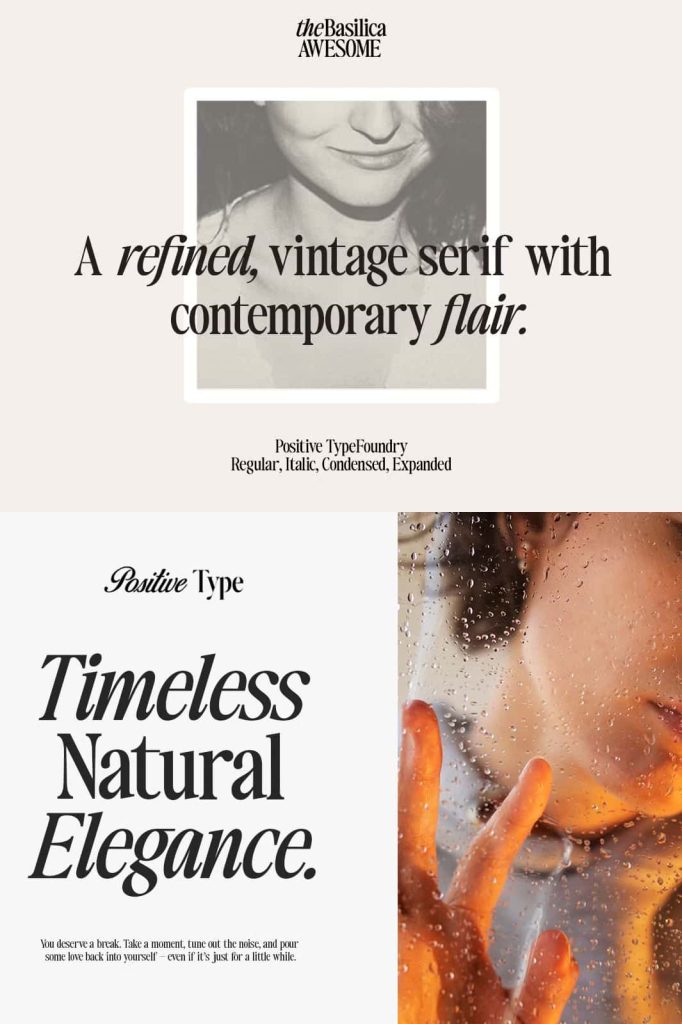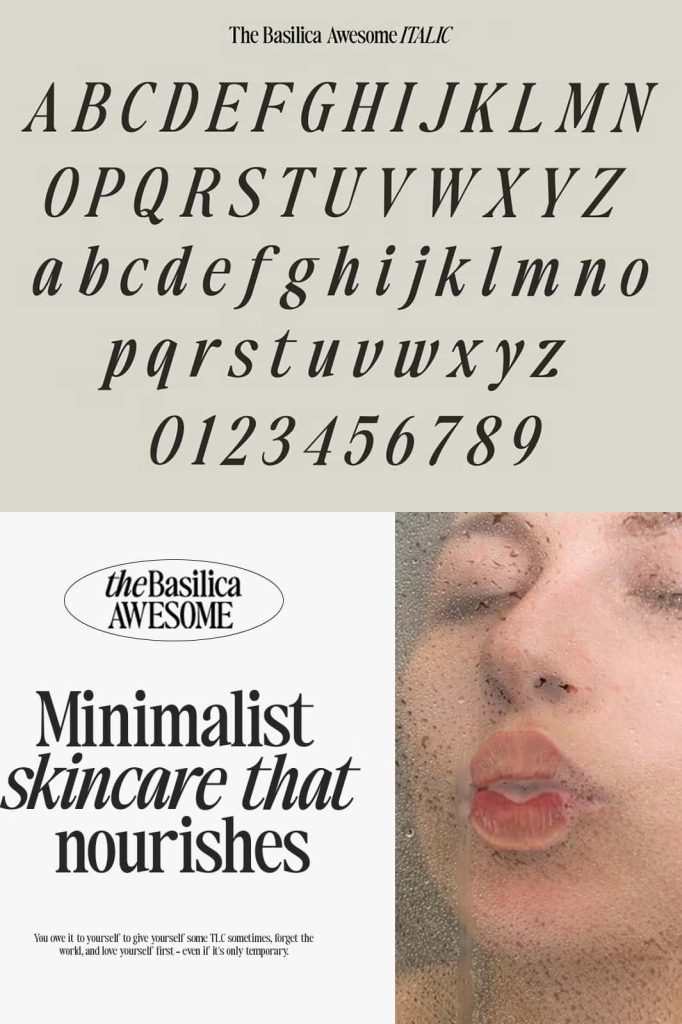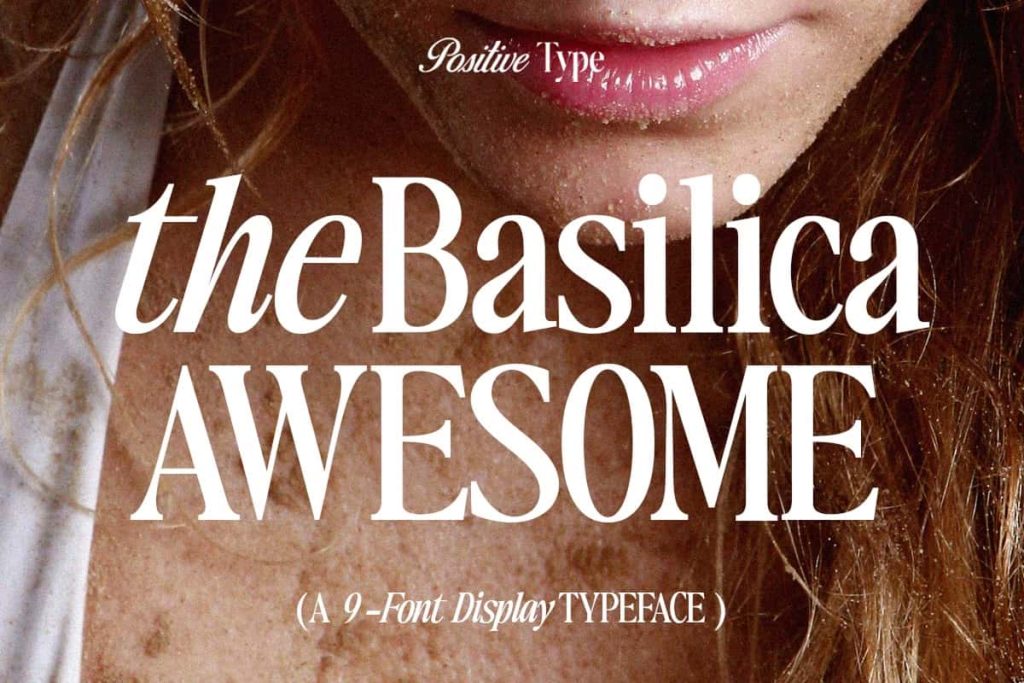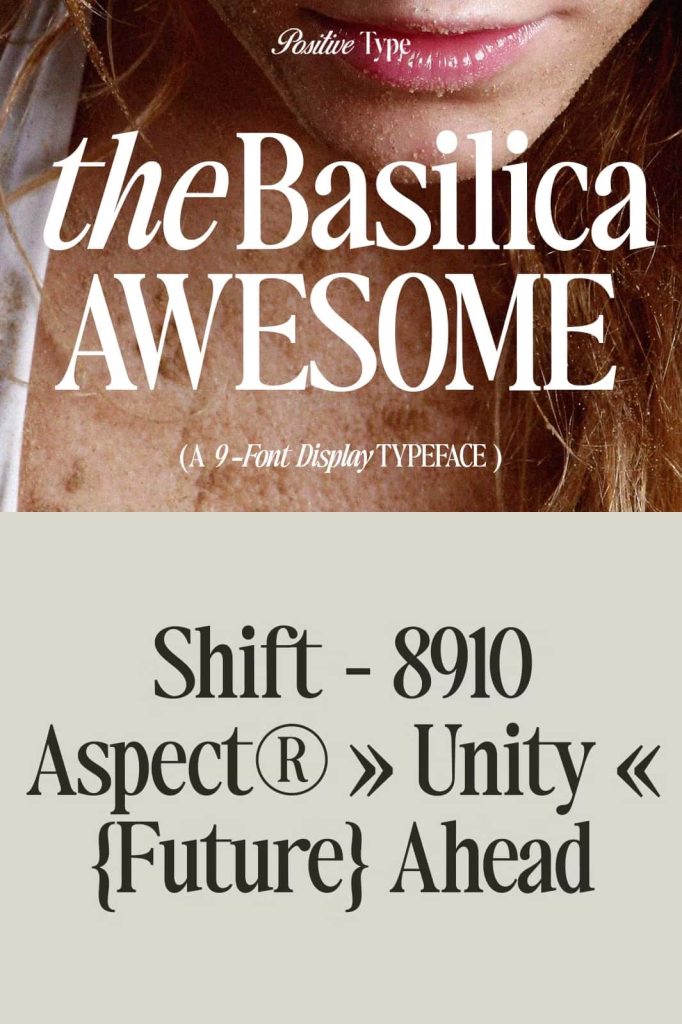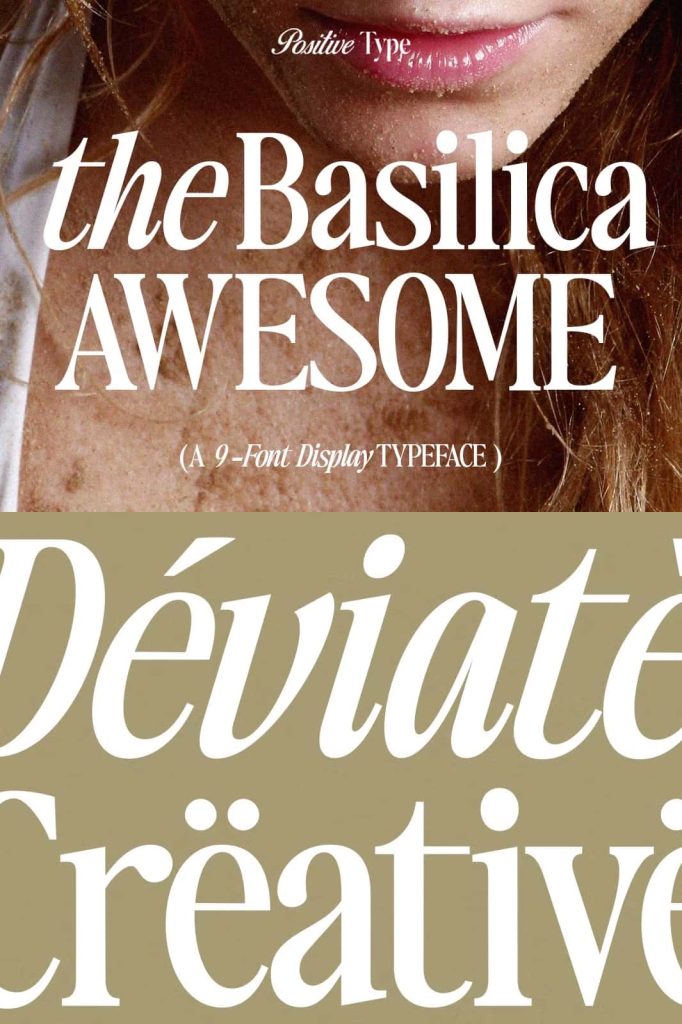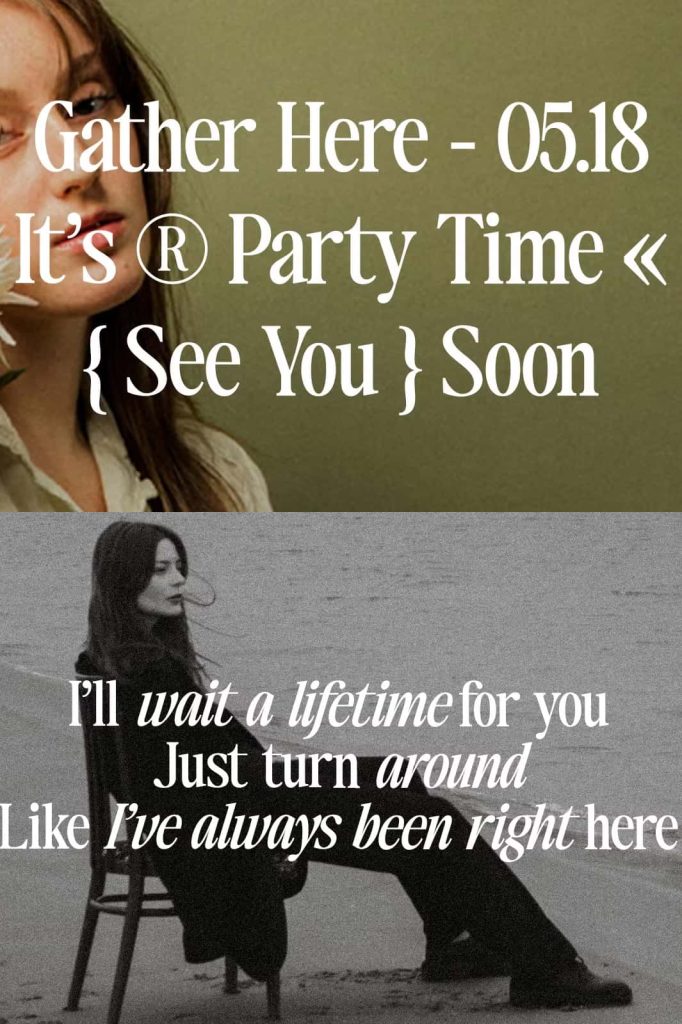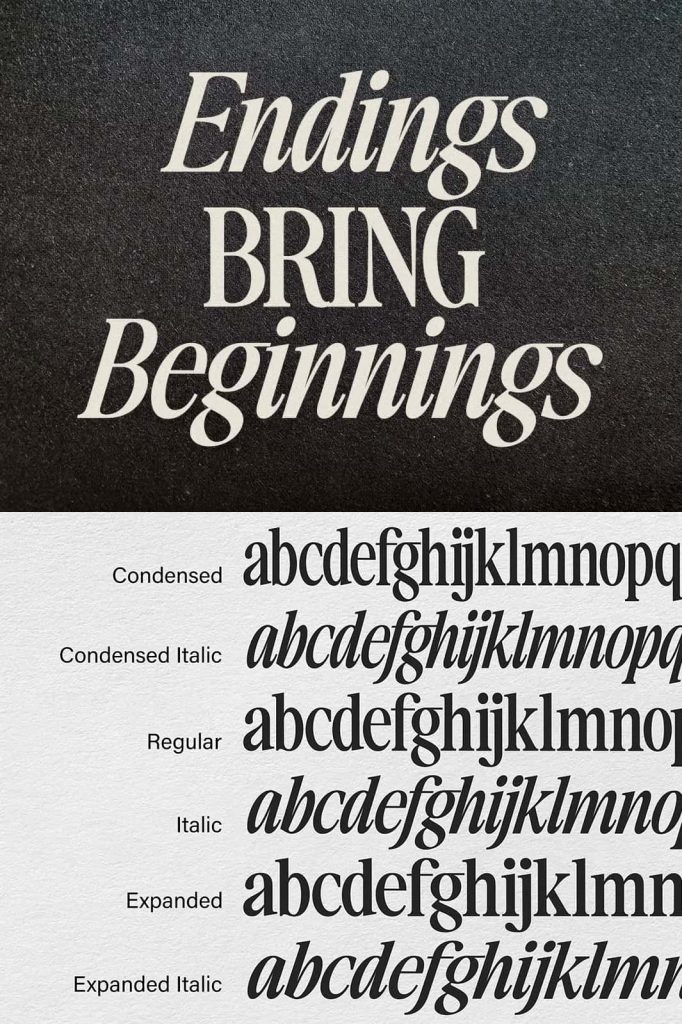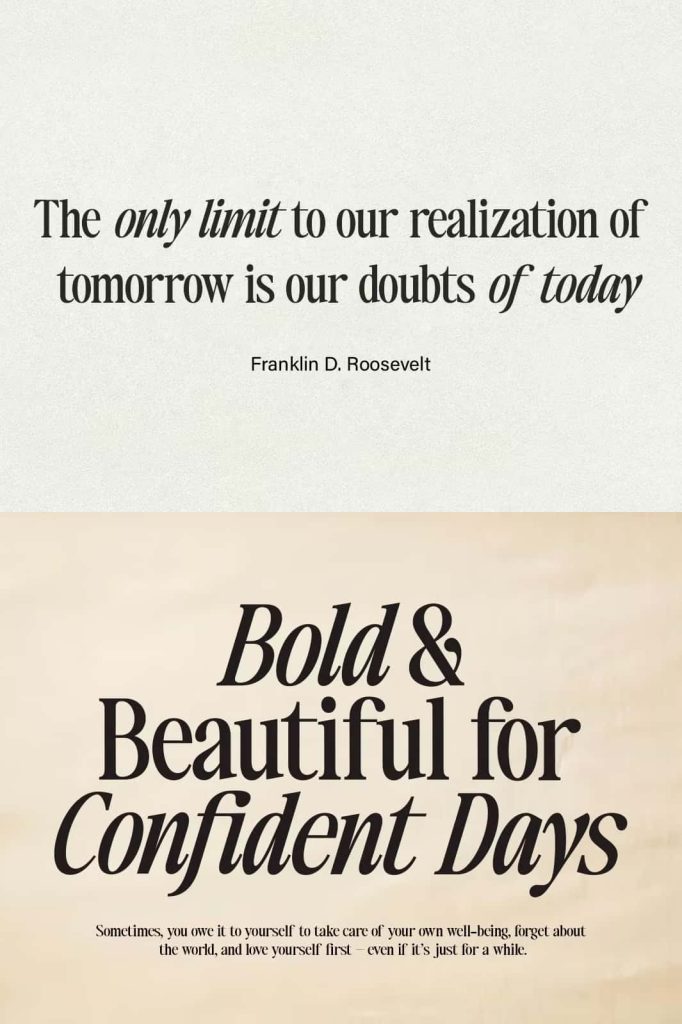
Basilica Awesome Modern Vintage Serif Font with Classy Elegance
Basilica Awesome is a modern vintage serif font designed to deliver a refined, luxurious, and elegant visual presence. This typeface combines classic serif traditions with contemporary design sensibilities, resulting in a font that feels timeless yet confidently modern. With its balanced proportions and carefully crafted details, Basilica Awesome empowers designers to create high-end typography that elevates any project.
This font does not simply decorate text. It strengthens brand identity, enhances visual hierarchy, and communicates sophistication. Whether you work on digital platforms or print materials, Basilica Awesome helps you produce designs that feel premium, intentional, and visually compelling.
A Modern Vintage Serif with Timeless Appeal
Basilica Awesome draws inspiration from vintage serif typography while refining it for today’s design standards. The font features strong serifs, smooth curves, and elegant contrast that create a polished and confident appearance. Each letterform reflects careful attention to detail, ensuring clarity and style at both large and small sizes.
This modern vintage serif font blends nostalgia with contemporary precision. It allows designers to evoke classic elegance without sacrificing readability or modern aesthetics. As a result, Basilica Awesome works seamlessly across a wide range of creative applications.
Elegant Uppercase and Lowercase Variations
Basilica Awesome provides beautifully designed uppercase and lowercase variations that give you full control over your typographic expression. These variations allow you to shape the tone of your design, from bold and authoritative to soft and refined. You can combine cases to build visual rhythm and emphasize key messages.
The harmonious relationship between uppercase and lowercase characters helps you create balanced layouts and elegant compositions. Whether you design headlines, subheadings, or refined brand marks, Basilica Awesome adapts effortlessly to your creative direction.
Advanced OpenType Features for Creative Control
This modern vintage serif font includes powerful OpenType features that expand your design possibilities. By activating these features in compatible design software, you gain access to a wide selection of stylistic alternatives and character variations. These options allow you to customize your typography and achieve a truly luxurious look.
With OpenType functionality, you can experiment with different character styles, refine letter combinations, and create unique typographic expressions. This level of control makes Basilica Awesome an ideal choice for designers who value flexibility and precision.
Design Luxurious and Classy Typography
Basilica Awesome excels in projects that demand elegance and sophistication. Its classy style makes it perfect for luxury branding, premium packaging, fashion editorials, and high-end promotional materials. The refined serif details communicate quality, trust, and exclusivity.
Use this font to design logos, logotypes, and brand identities that feel timeless and upscale. The font’s graceful structure ensures that your designs remain visually appealing and recognizable across multiple platforms and media.
Perfect for Editorial, Branding, and Web Design
In editorial design, Basilica Awesome enhances magazine layouts, book covers, and feature spreads with a refined and authoritative tone. The font helps establish strong typographic hierarchy and improves readability while maintaining an elegant aesthetic.
For web design, Basilica Awesome brings a sense of luxury and professionalism to headers, landing pages, and brand storytelling sections. Its modern vintage character ensures your digital presence feels polished and memorable.
Versatile Across Print and Digital Media
Basilica Awesome performs beautifully in both print and digital formats. Designers can apply it to posters, brochures, invitations, labels, and packaging with confidence. The font’s consistent structure ensures clean reproduction and visual clarity across different materials and resolutions.
This versatility allows you to maintain a cohesive visual identity across all touchpoints. Whether you design for screen or paper, Basilica Awesome delivers consistent elegance and impact.
Create Designs That Feel Premium and Refined
Basilica Awesome empowers you to create typography that feels luxurious, modern, and timeless. Its combination of vintage influence, elegant letterforms, and advanced OpenType features gives you the tools to design with confidence and creativity.
Choose Basilica Awesome modern vintage serif font when you want to elevate your projects with a classy and sophisticated typographic voice. Let it shape your designs with elegance, precision, and lasting visual appeal.